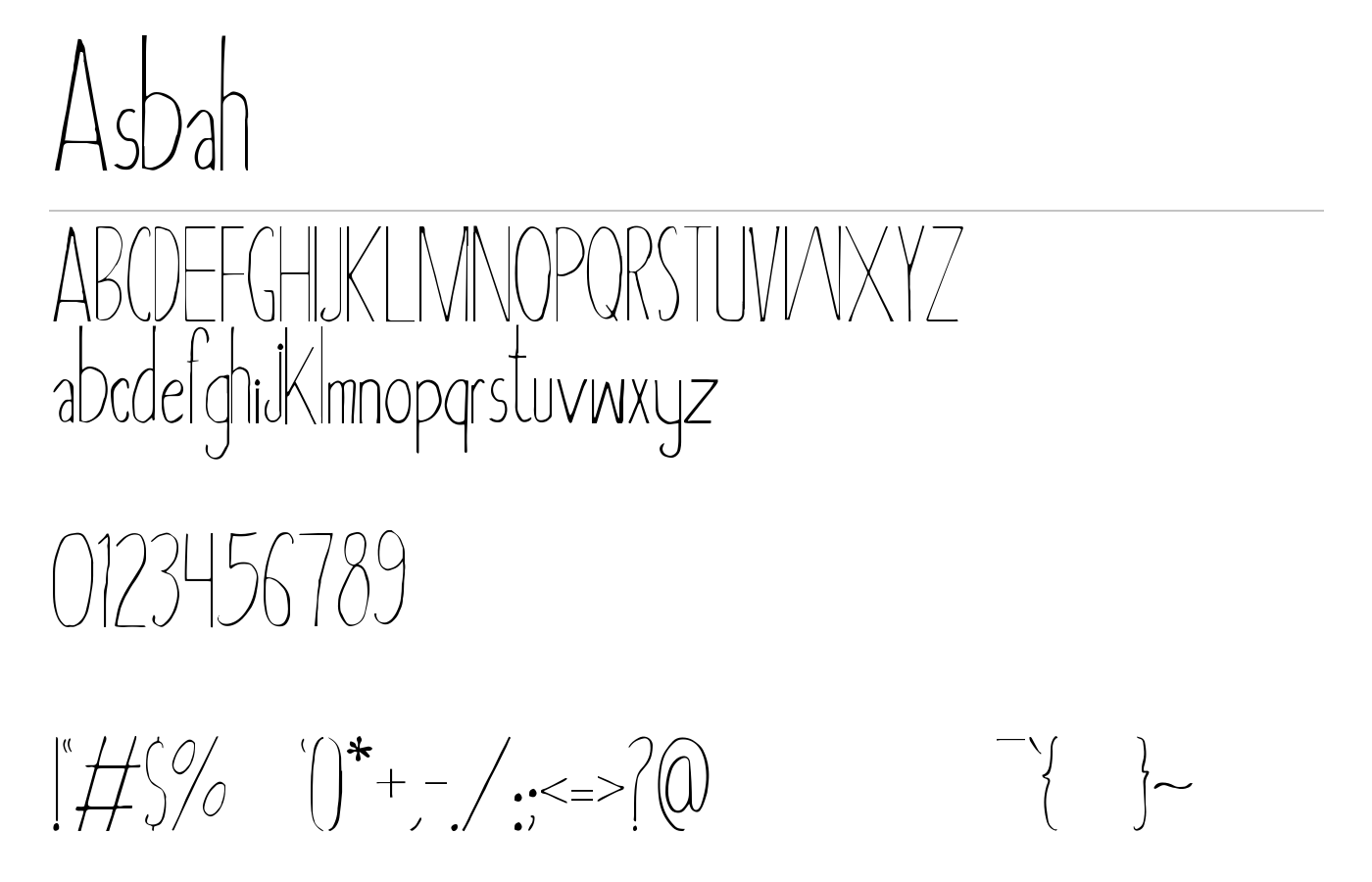
Asbah is a delicate, narrow sans serif font characterized by its very tall, slender letterforms and consistent light stroke weight, giving it an airy, minimalist feel. Its quirky, slightly irregular shapes add a handwritten charm while maintaining elegance, making it ideal for creative projects, headlines, or invitations needing a subtle yet distinctive personality. This font works well where a refined but approachable look is desired, especially in fashion, editorial, and artistic branding.
Asbah Font
About Asbah Font
| Font family | Asbah Font |